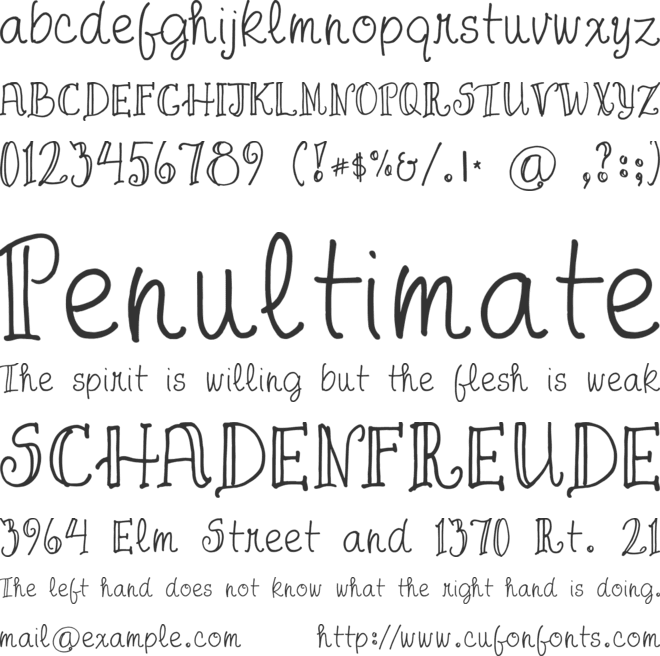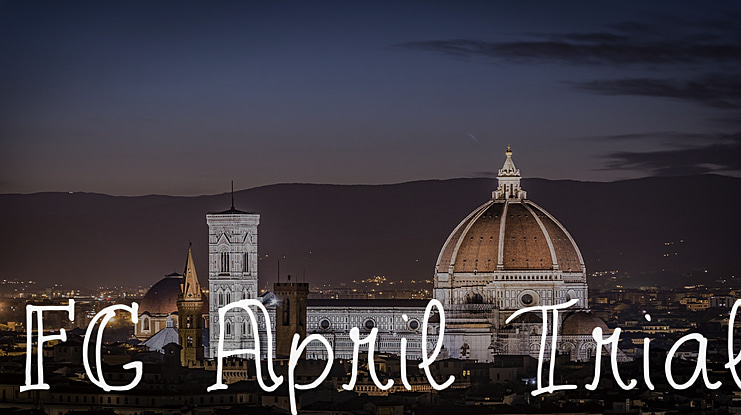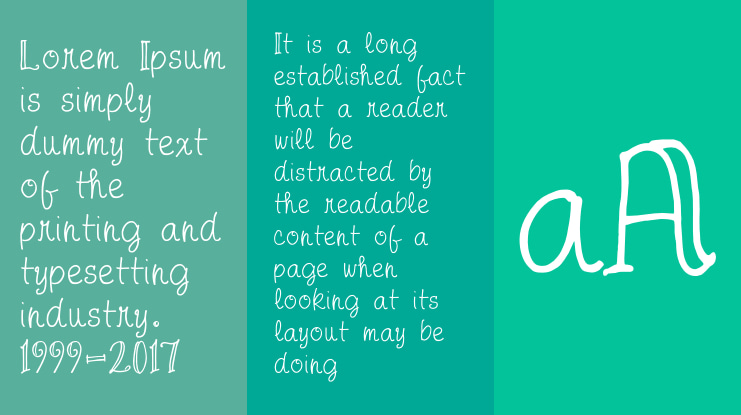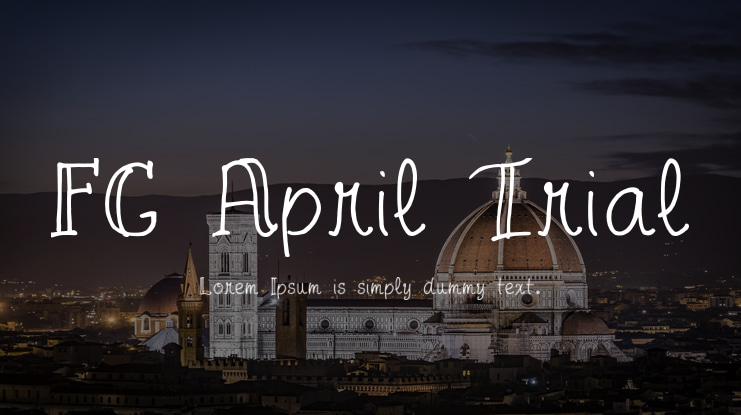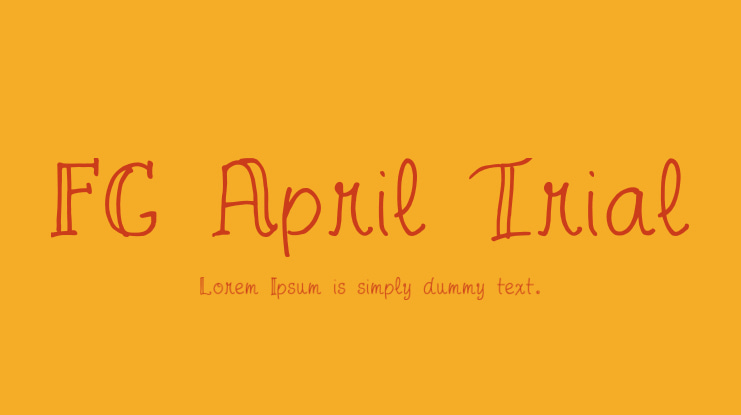
FG April Trial Font
Beautiful font that works great with only caps as well. For full characterset and commercial license visit www.fontgarden.com/shop/ (http://www.fontgarden.com/shop/)Enjoy!Ellinor